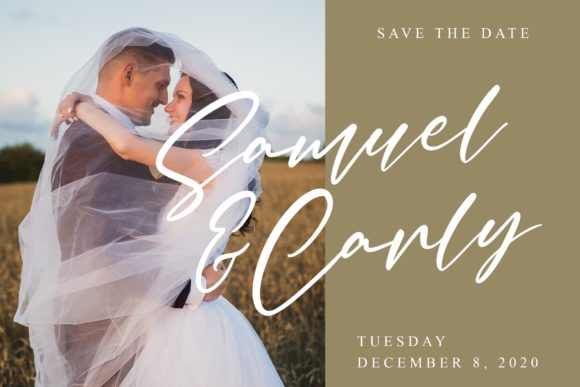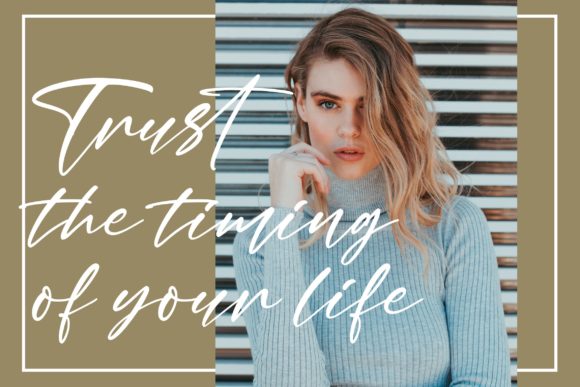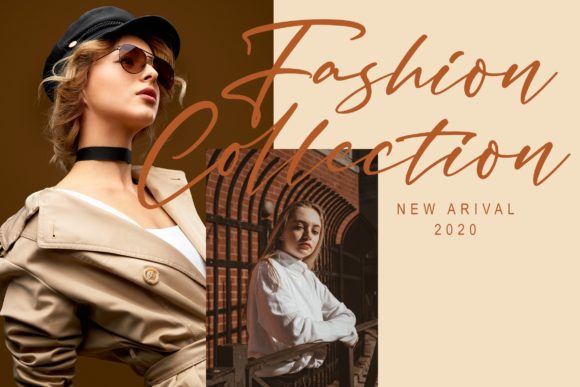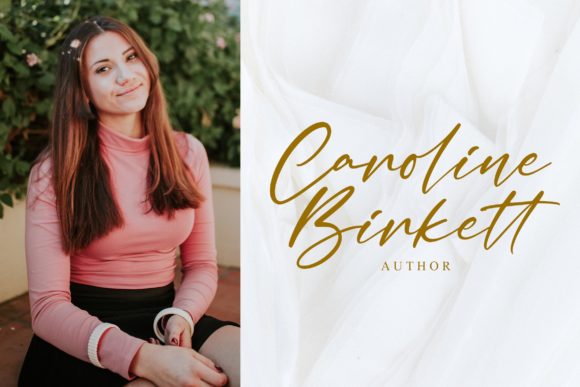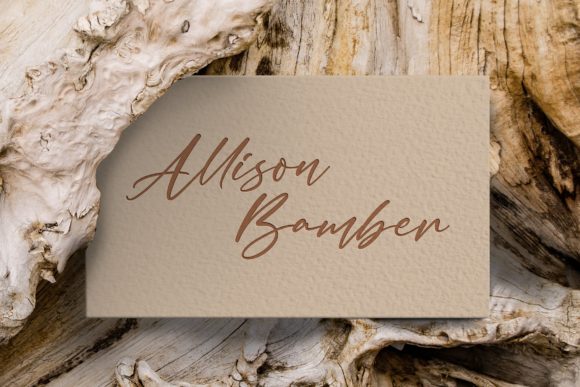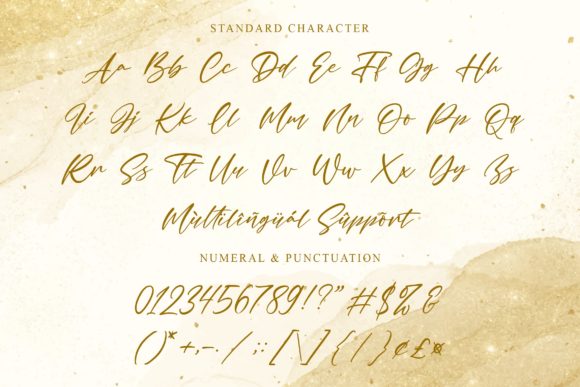
Introduction to Malstyoor Font
Malstyoor is a modern and stylish script font that has been masterfully designed to become a true favorite.
It maintains its classy calligraphic influences while feeling contemporary and fresh Malstyoor is perfect for branding projects, logo, wedding designs, social media posts, advertisements, product packaging, product designs, label, photography, watermark, invitation, stationery, and any projects that need handwriting taste.